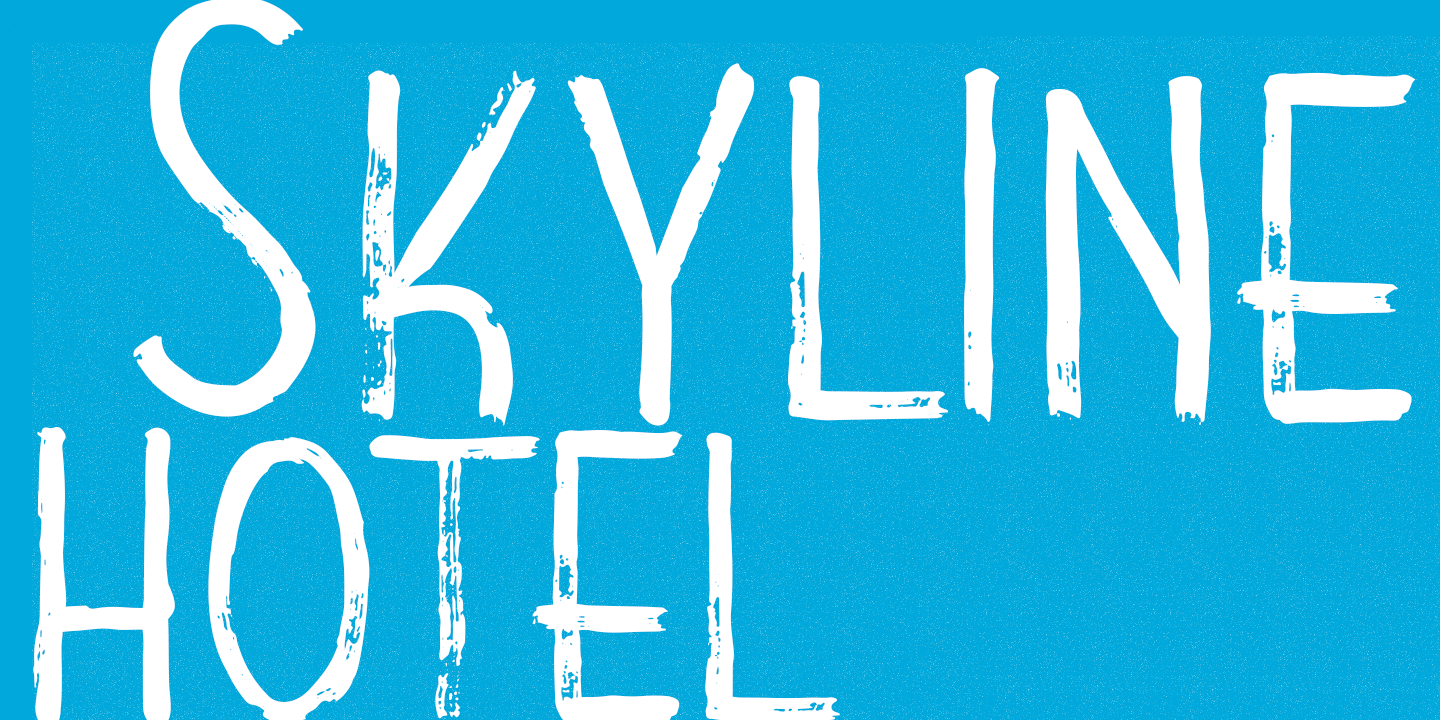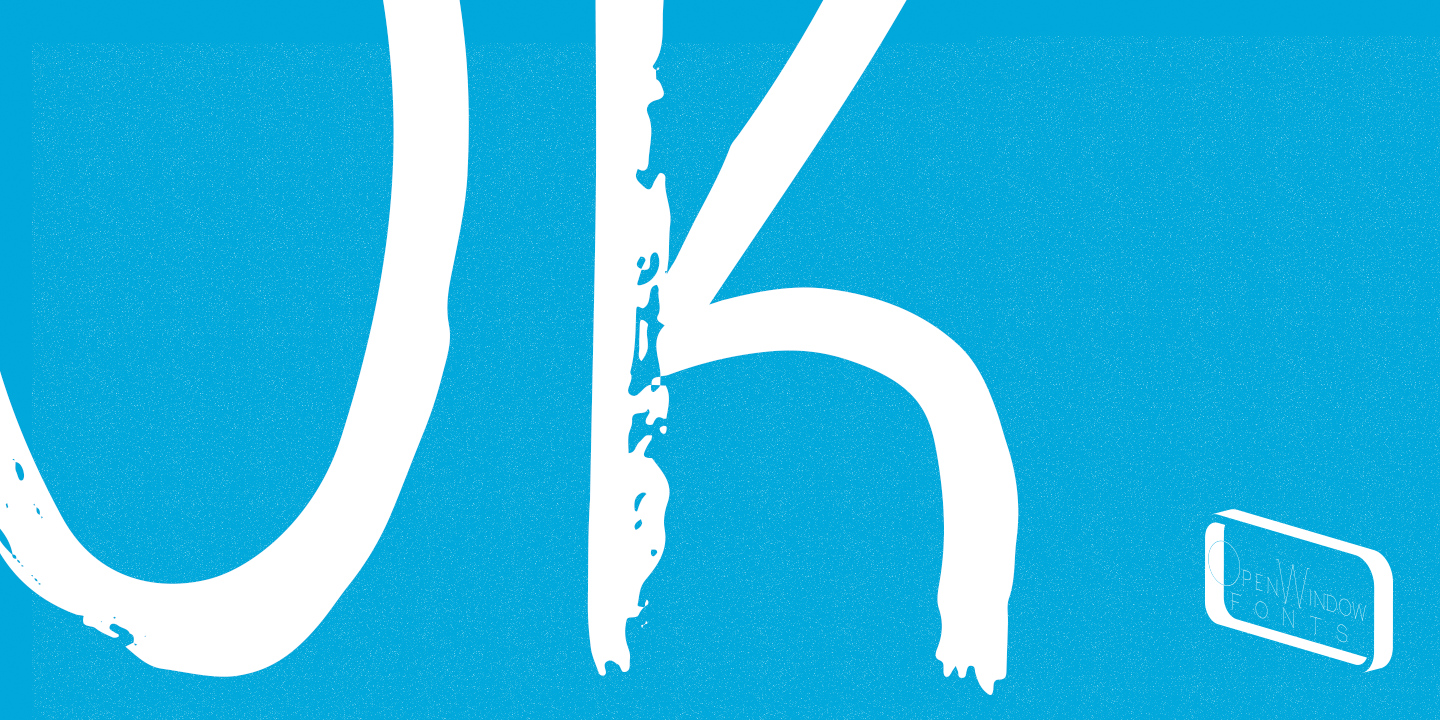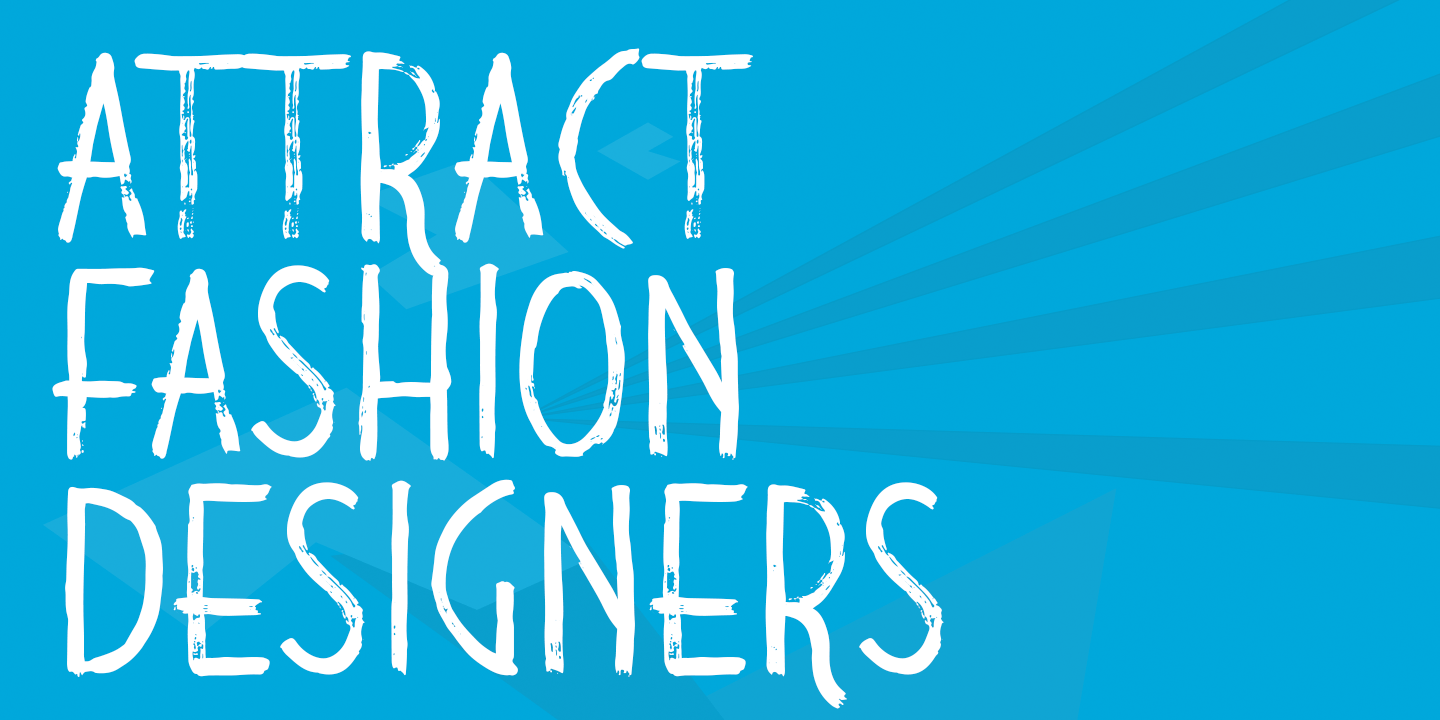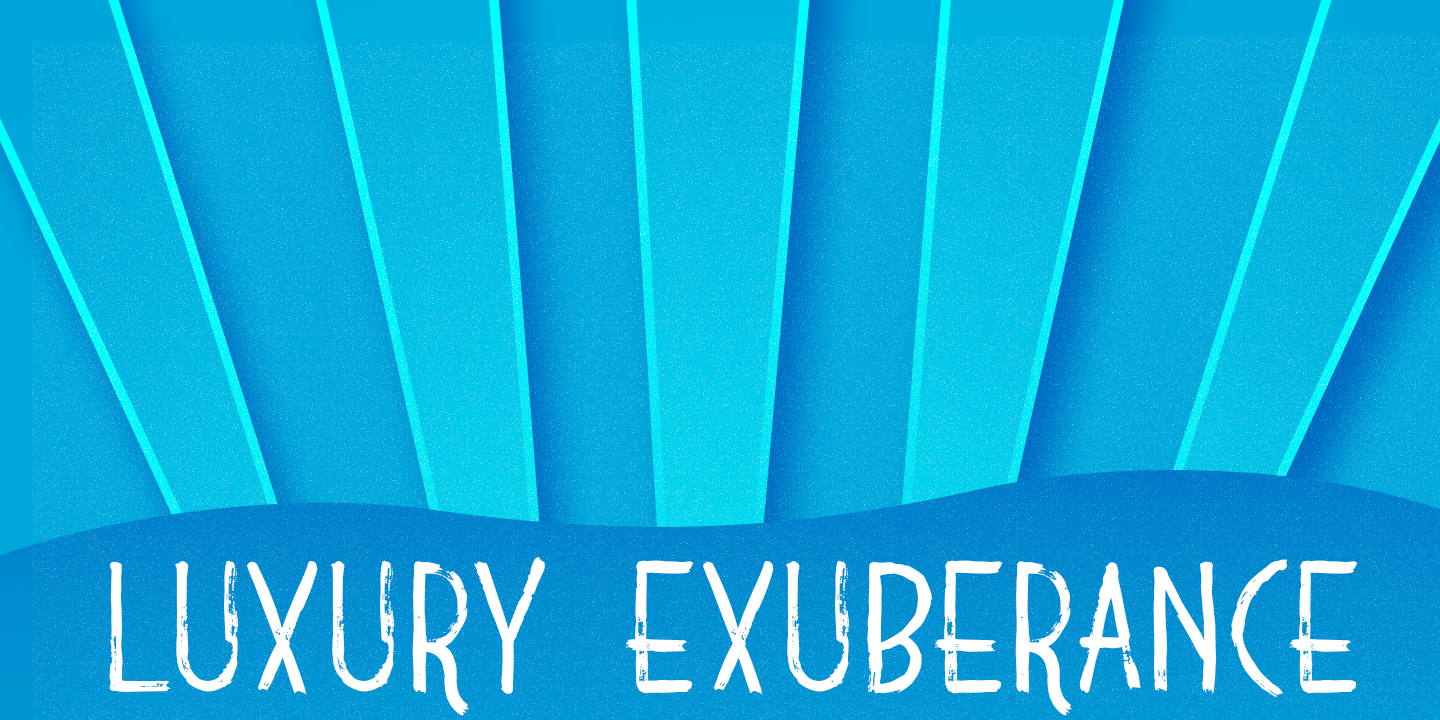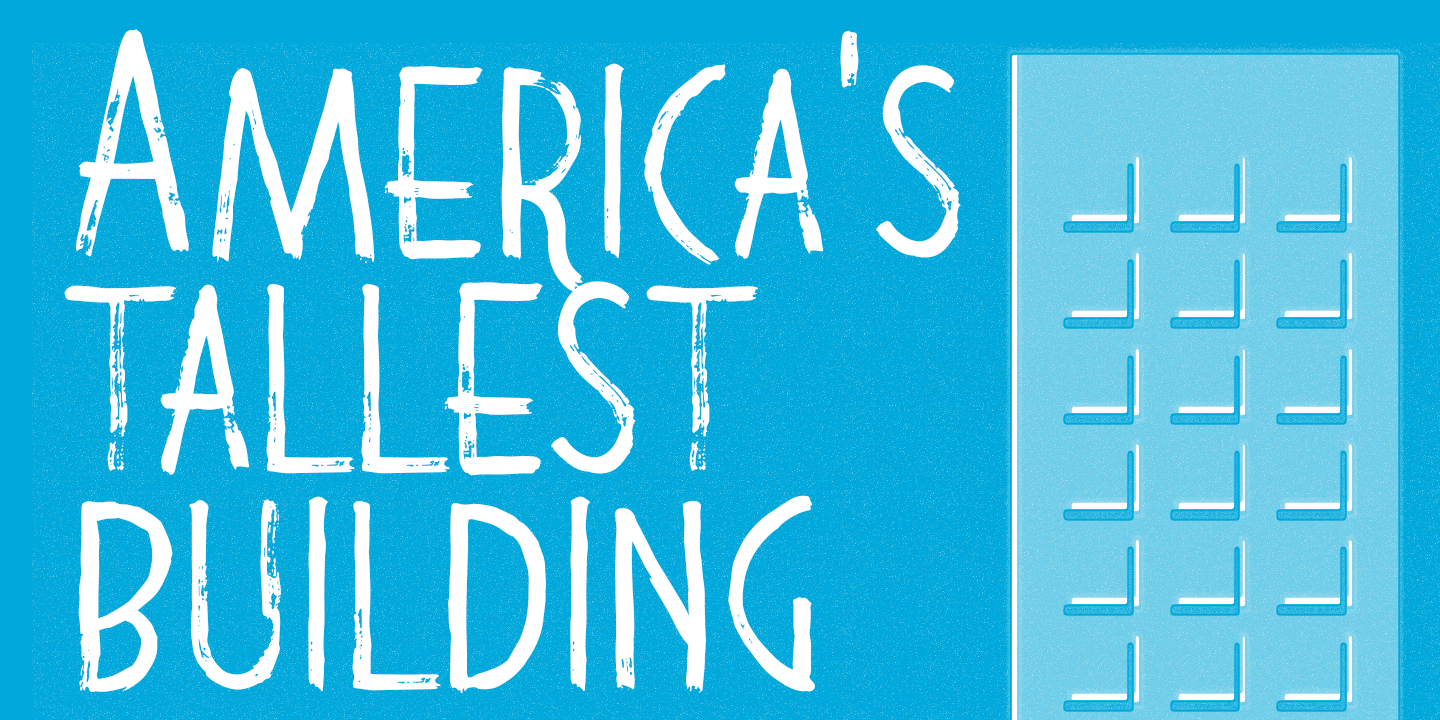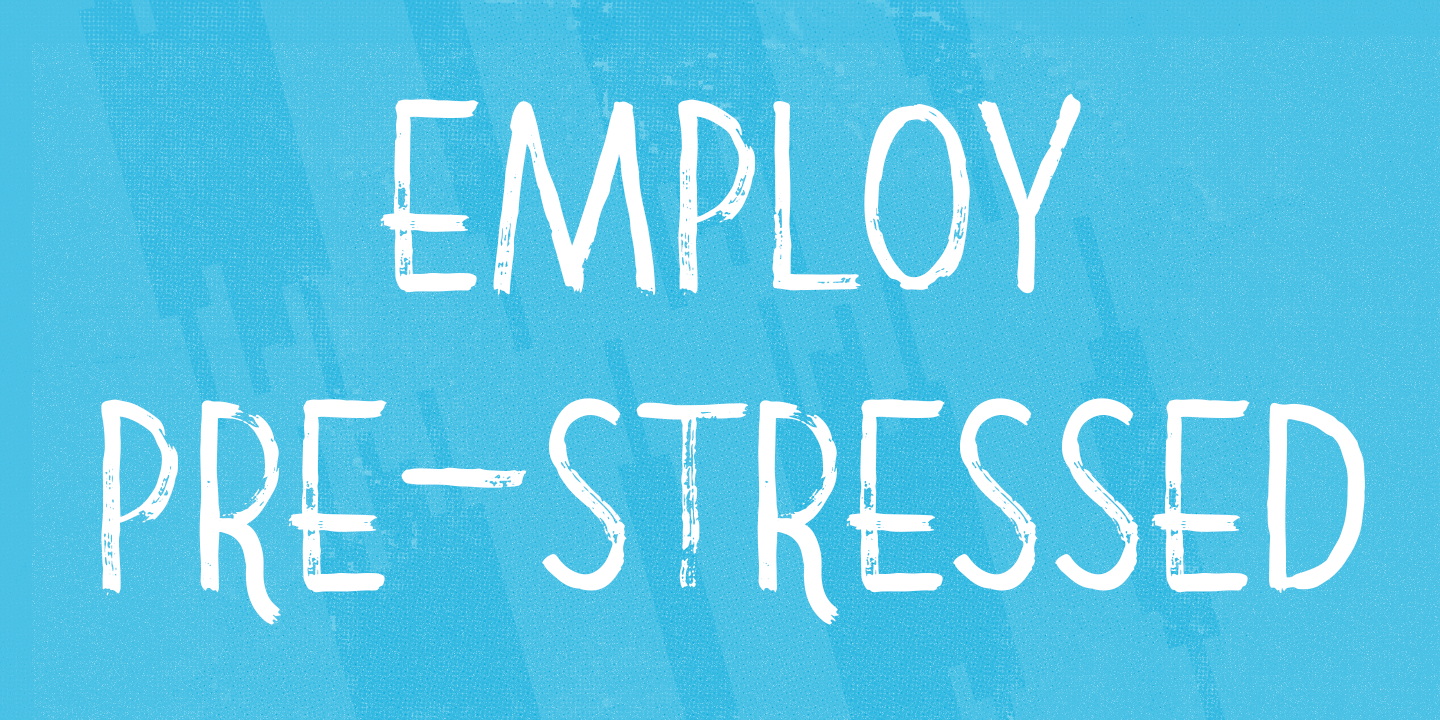
Skyline Hotel
Font Family by Open Window
Skyline Hotel is a brand new hand painted font from Dathan Boardman of Open Window.
It utilizes Art Deco structures but is greatly amplified by organic paint brush strokes. The font would be best used in designs that require an organic degraded look and feel.
Skyline Hotel? optimal for back alley graffiti mural or a poster to begin a political revolution. Geometric essentials betrayed by fluid expression.